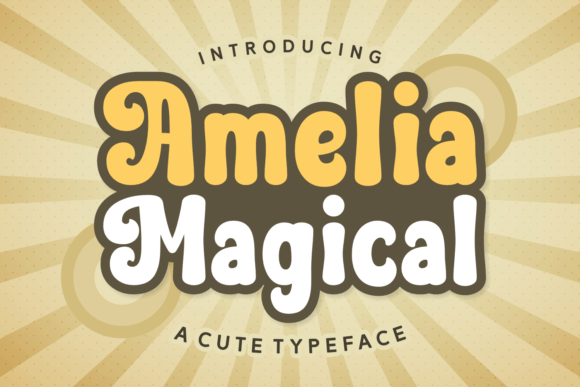
The Magical World of Amelia: A Font That Brings Joy to Your Designs
Have you ever been in the middle of a design project, and suddenly, you’re stuck on finding the perfect font? I certainly have! It was a sunny Saturday morning when I received an urgent message from a client asking for a last-minute change to a branding project. The task was to infuse a playful, retro vibe into the design. As I began to explore font options, that’s when I stumbled upon Amelia Magical.
Amelia Magical is a sweet and joyful display font that immediately caught my attention with its thick and bubbly characters. It was love at first sight! The font’s playful and whimsical nature made it the perfect fit for adding a fun retro touch to my design. In this article, I’ll share my experience with Amelia Magical, its features, and how to make the most of it in your creative projects.
An Honest Review of Amelia Magical
• ✅ Unique and playful character design that adds a retro touch to any design
• ✅ PUA encoded, making it easy to access all glyphs and swashes
• ✅ Perfect for display text, titles, and headings
• ✅ Great for creating eye-catching posters, flyers, and social media graphics
While Amelia Magical is an amazing font, there are a few things to keep in mind:
• 🤔 The font might not be suitable for body text or small font sizes due to its bold and playful nature
• ⚠️ Some characters may not be suitable for professional or formal designs, as they are quite playful
The Backstory of Amelia Magical
Amelia Magical was designed with the intention of bringing joy and playfulness to designs. The font’s creator wanted to craft a font that would evoke a sense of nostalgia and fun, perfect for designs that require a touch of whimsy. With its unique character design and PUA encoding, Amelia Magical has become a popular choice among designers and crafters.
A: PUA (Private Use Area) encoding allows font creators to include additional characters and glyphs that are not part of the standard Unicode range. This means that Amelia Magical users can access a wide range of swashes, glyphs, and alternates, making it easier to create unique and creative designs.
Q: Is Amelia Magical suitable for body text or small font sizes?
A: While Amelia Magical is a beautiful font, it’s best suited for display text, titles, and headings. Due to its bold and playful nature, it might not be the best choice for body text or small font sizes.